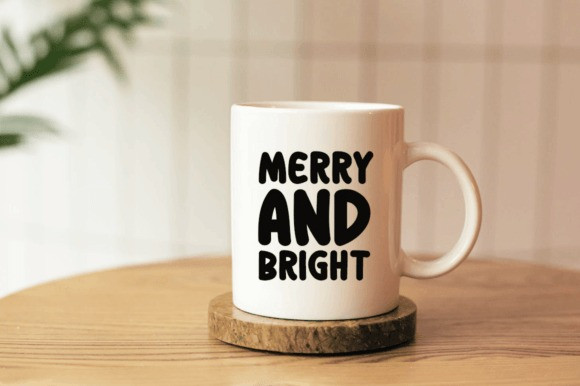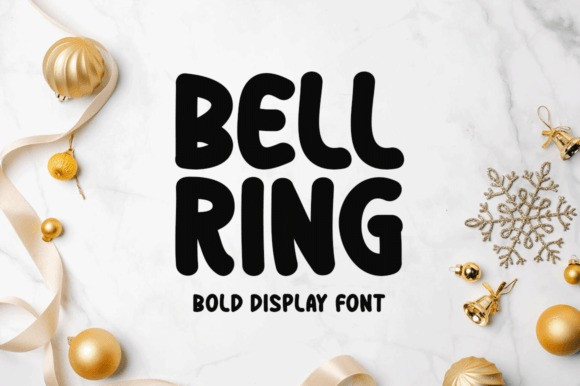
Bell Ring Font
Bell Ring Font, a handwritten font that captures the essence of the season. Its distinct charm makes it an ideal choice for a wide spectrum of design projects, where your creativity knows no bounds.